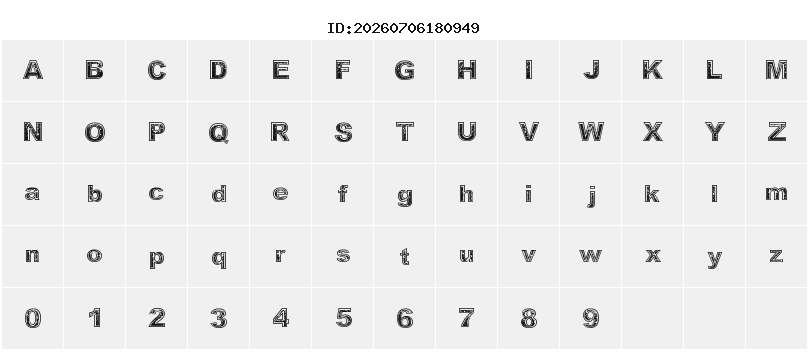
• Font Name: Determined
Determined.ttf is a modern, elegant sans-serif font designed for ultimate readability and visual harmony. Perfect for branding, headlines, web design, and print materials.